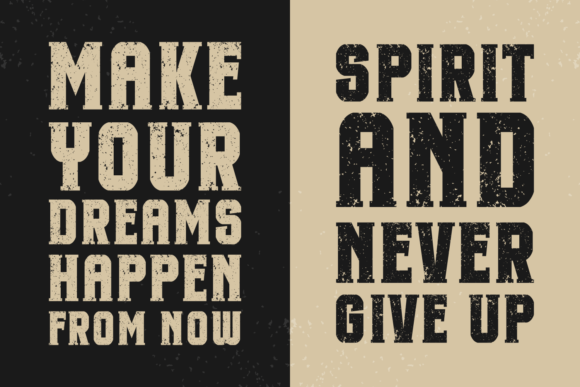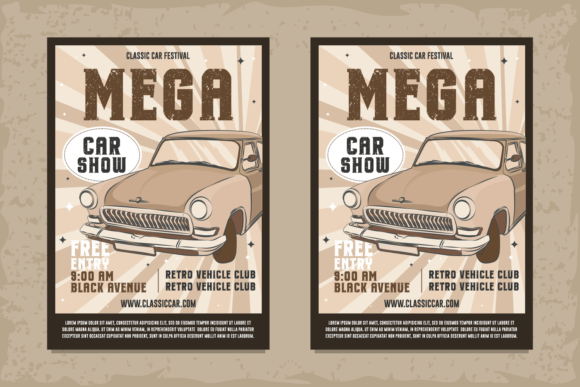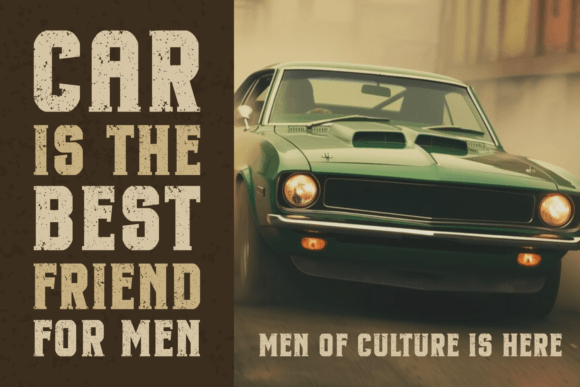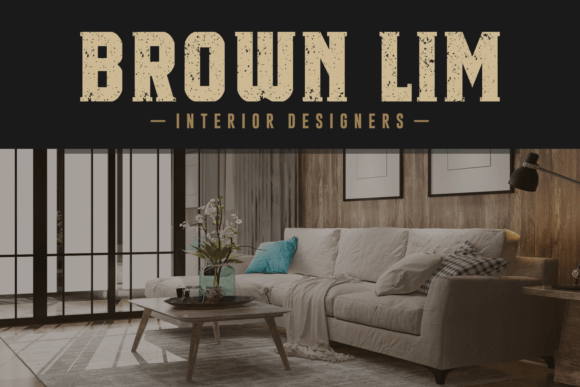
Super Grunge Font
Super Grunge is a cool vintage font with a rugged, distressed look. It has a classic, worn-out style that adds a touch of edgy nostalgia to any text. Perfect for making bold, retro designs stand out!